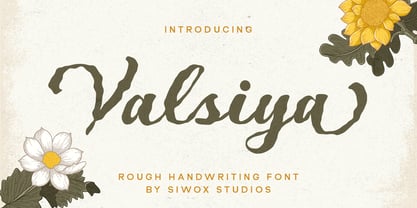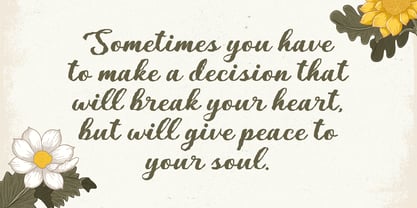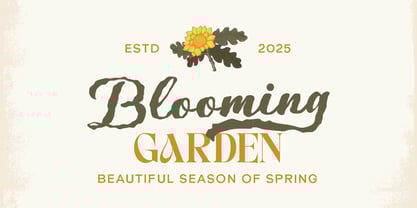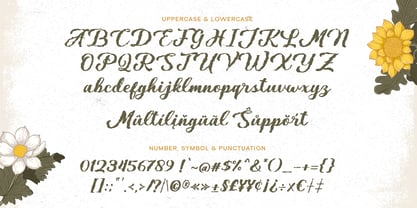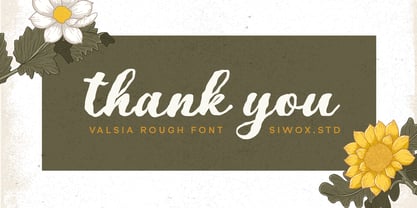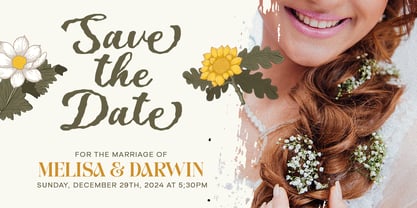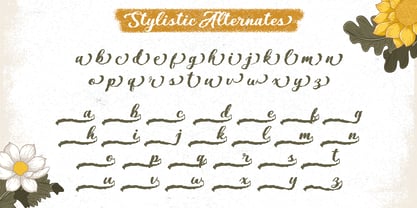
Valsiya
by Siwox Studios
The Valsiya Font Family was designed by Rizaldi Wandani and published by Siwox Studios. Valsiya contains 1 styles. More about this family
Introducing Valsiya Font
This font mimics handwriting with a rough, imperfect appearance. Its key characteristics include uneven strokes, spontaneous brush-like marks, and slightly distorted letterforms. This rugged effect conveys a natural, free, and organic feel, often making the text appear more approachable or informal. The font is ideal for designs aiming to evoke a creative, relaxed, or even edgy vibe, such as in logos, posters, or promotional materials that emphasize a human and authentic touch.
Designers: Rizaldi Wandani
Foundry: Siwox Studios